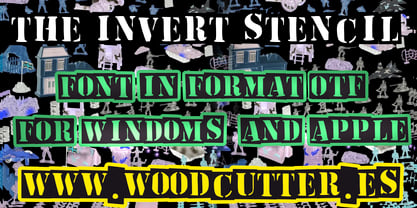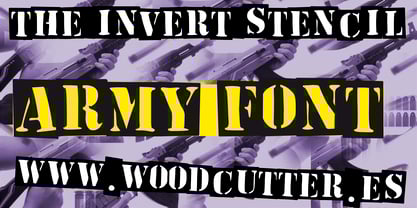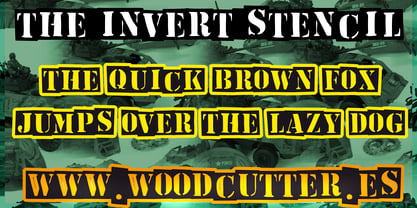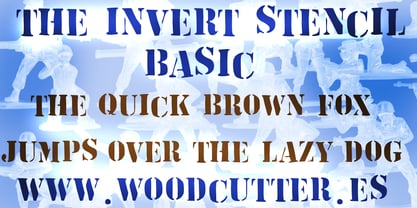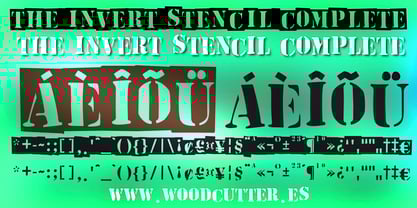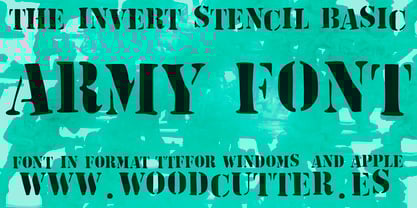
The Invert Stencil
by Woodcutter
The The Invert Stencil Font Family was designed by Jordi Manero and published by Woodcutter. The Invert Stencil contains 2 styles and family package options.
The "The Invert Stencil" font family includes two unique versions that share a bold and dynamic military character. The original version, "The Invert Stencil," features inverted uppercase letters placed over a black rectangle, creating a strong and striking visual contrast. The letters have an irregular appearance, as if slightly shifted, adding a chaotic and rebellious aesthetic. On the other hand, "The Invert Stencil Basic" retains the family’s essence but removes the black rectangle, offering solid and cleaner letters. Both versions are perfect for energetic designs, combining modernity and strength with a distinctive edge.